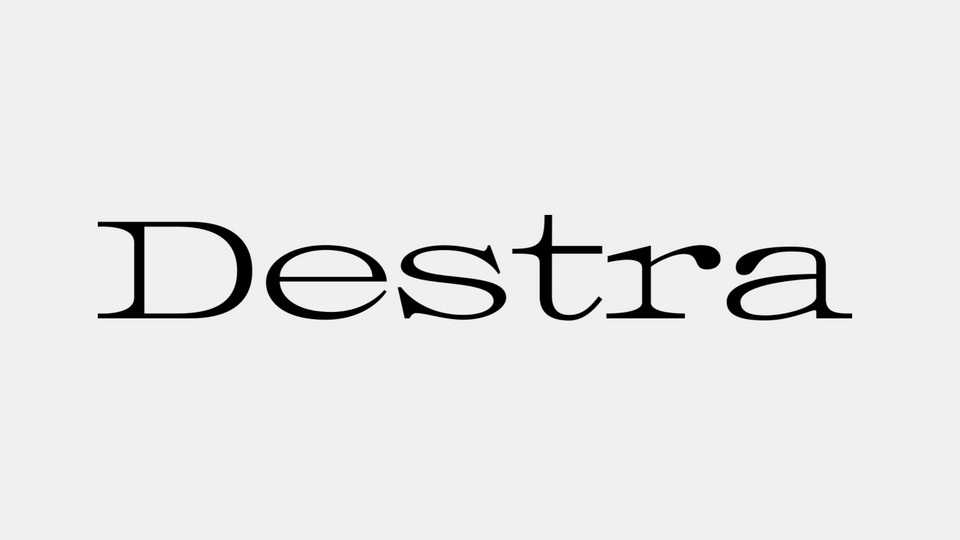
Download Destra font, an elegant serif typeface, a revival of a French’s booklet about car from the early XX’s century. With its sharp and high contrast look, Destra font is ideal for editorial use, posters, branding and magazines.
Designer: Cédric Rossignol Brunet